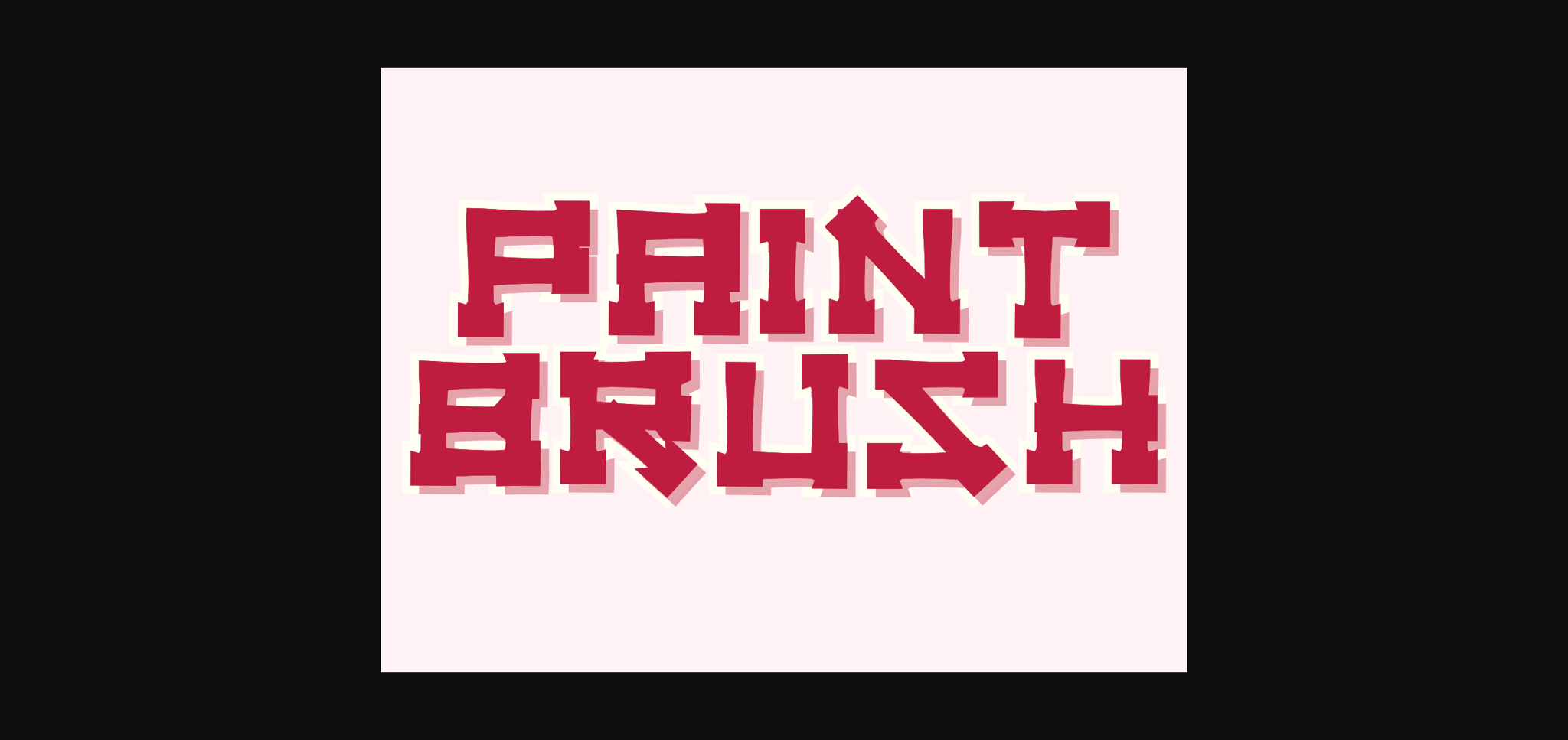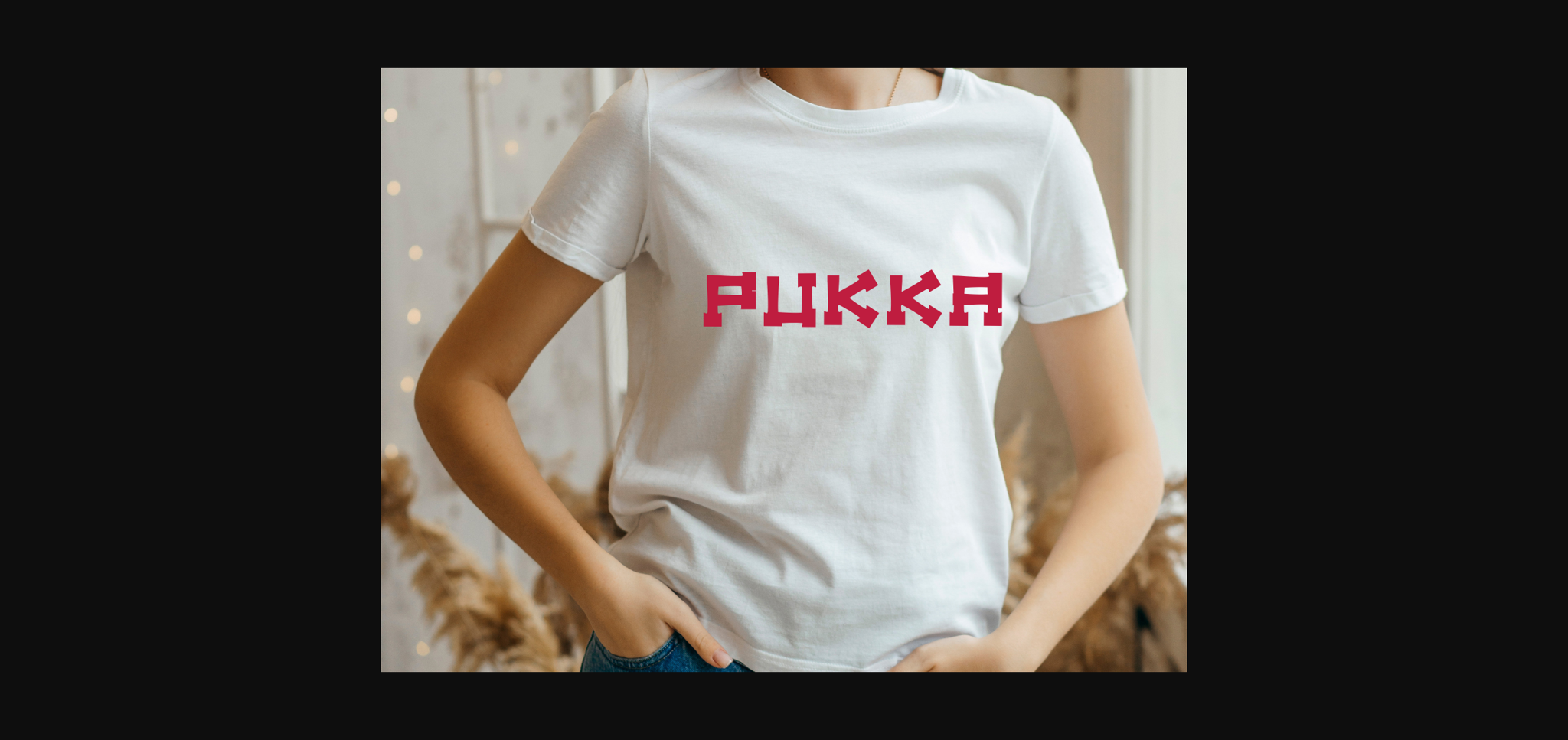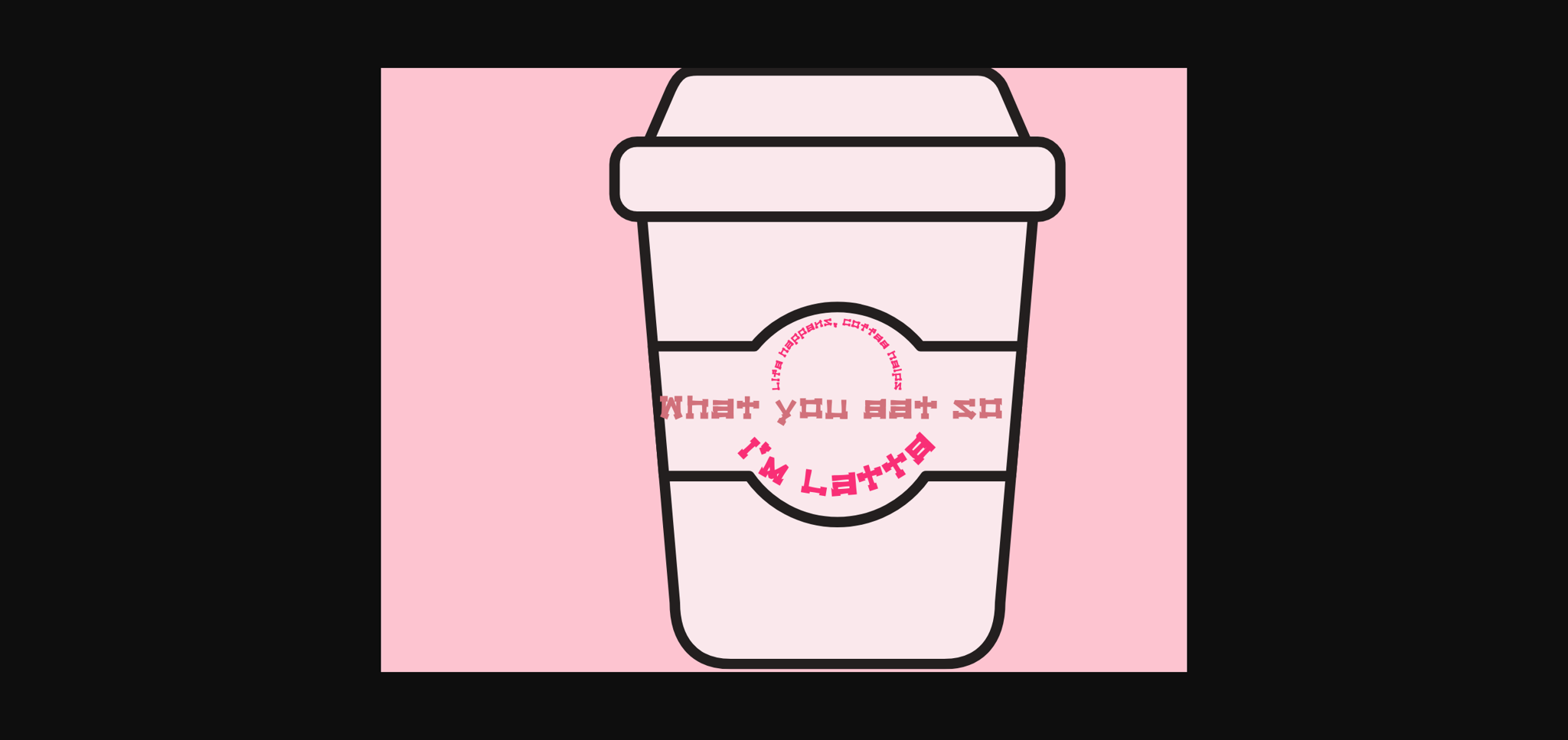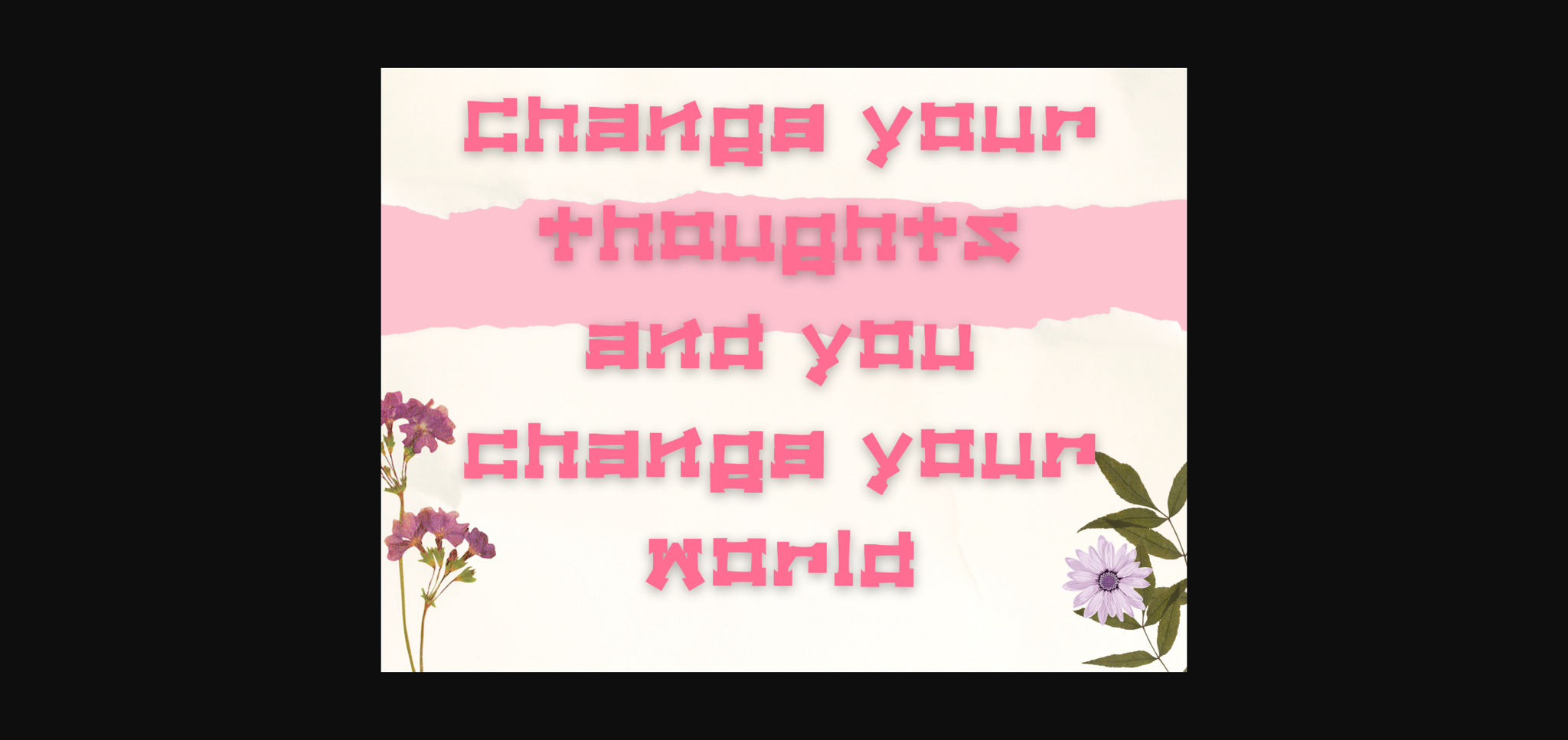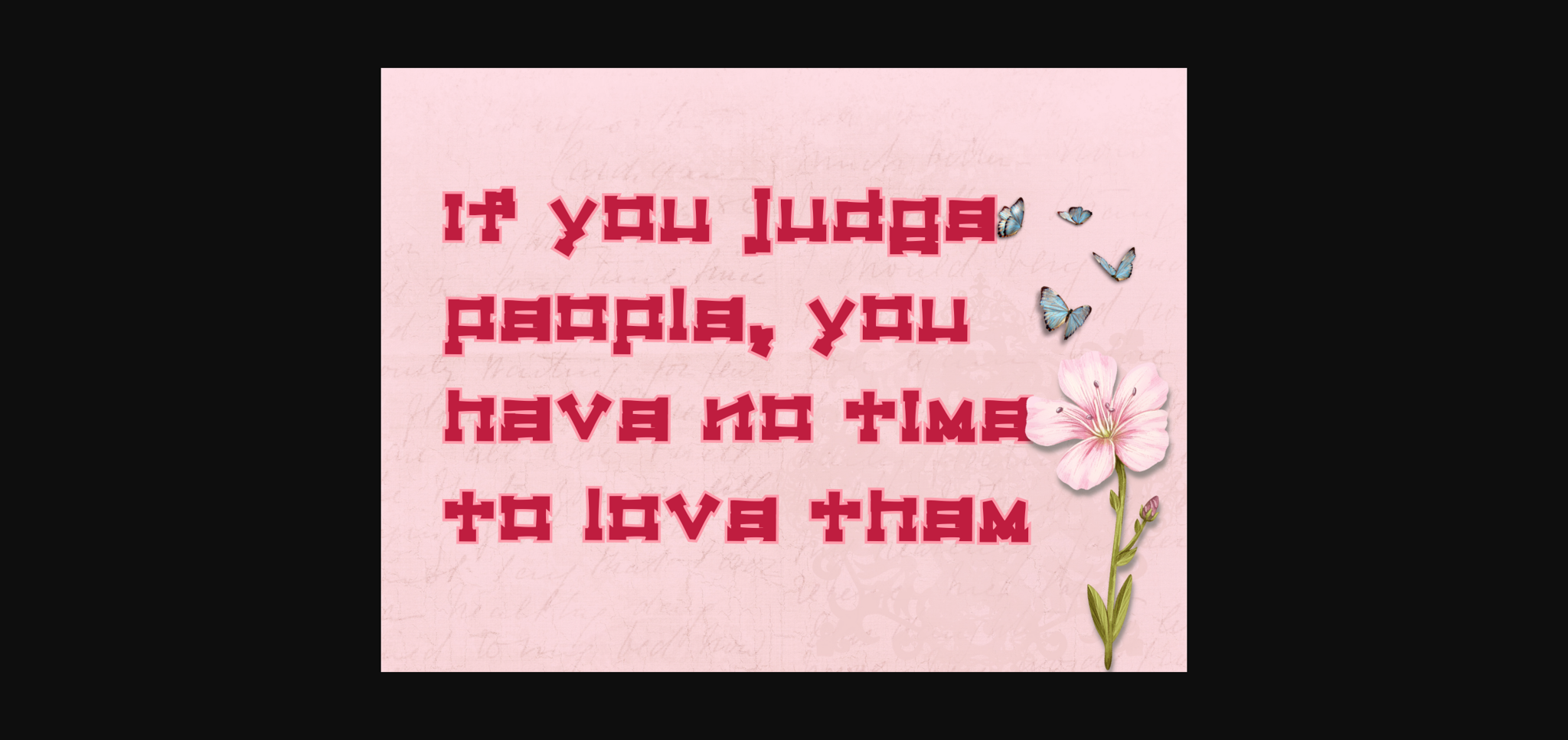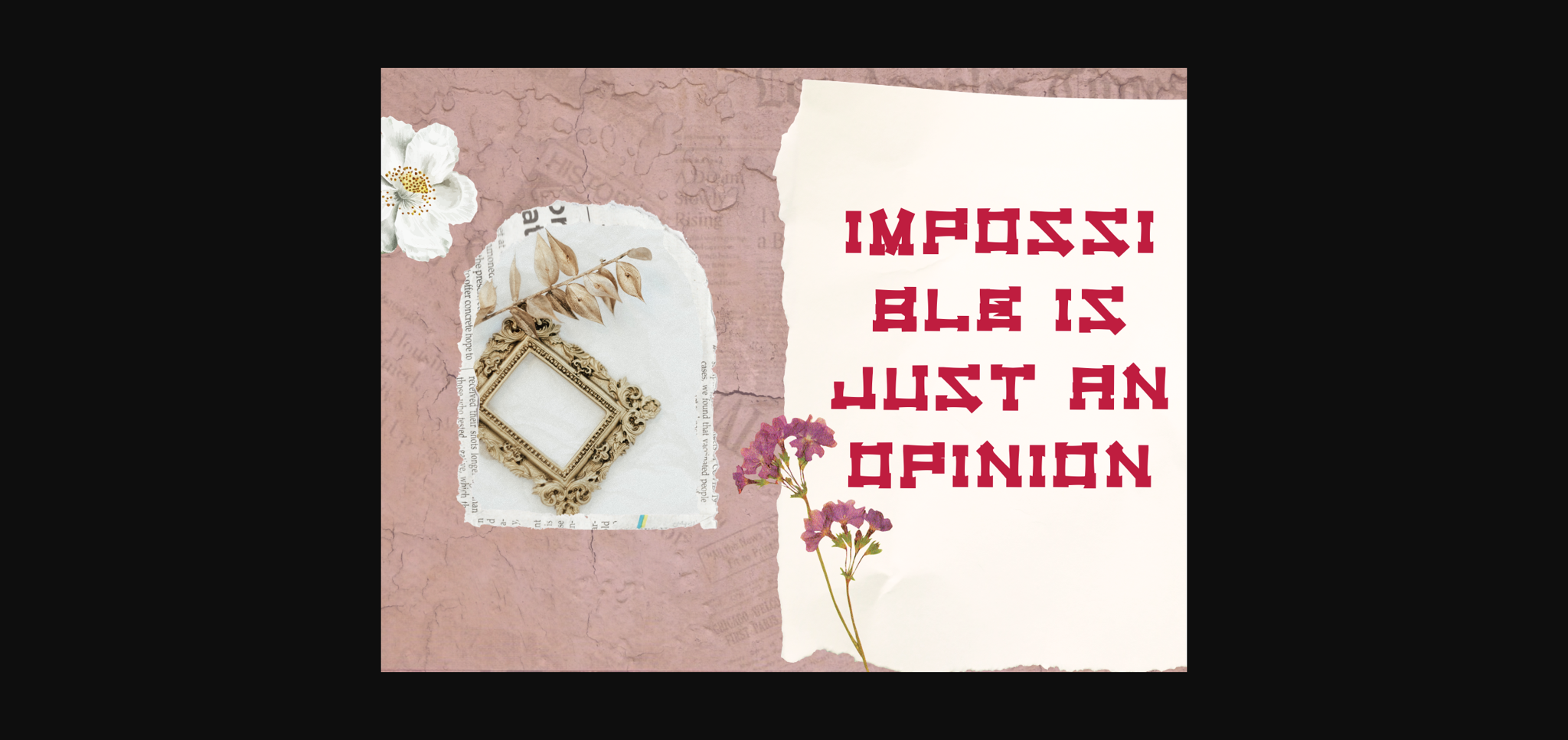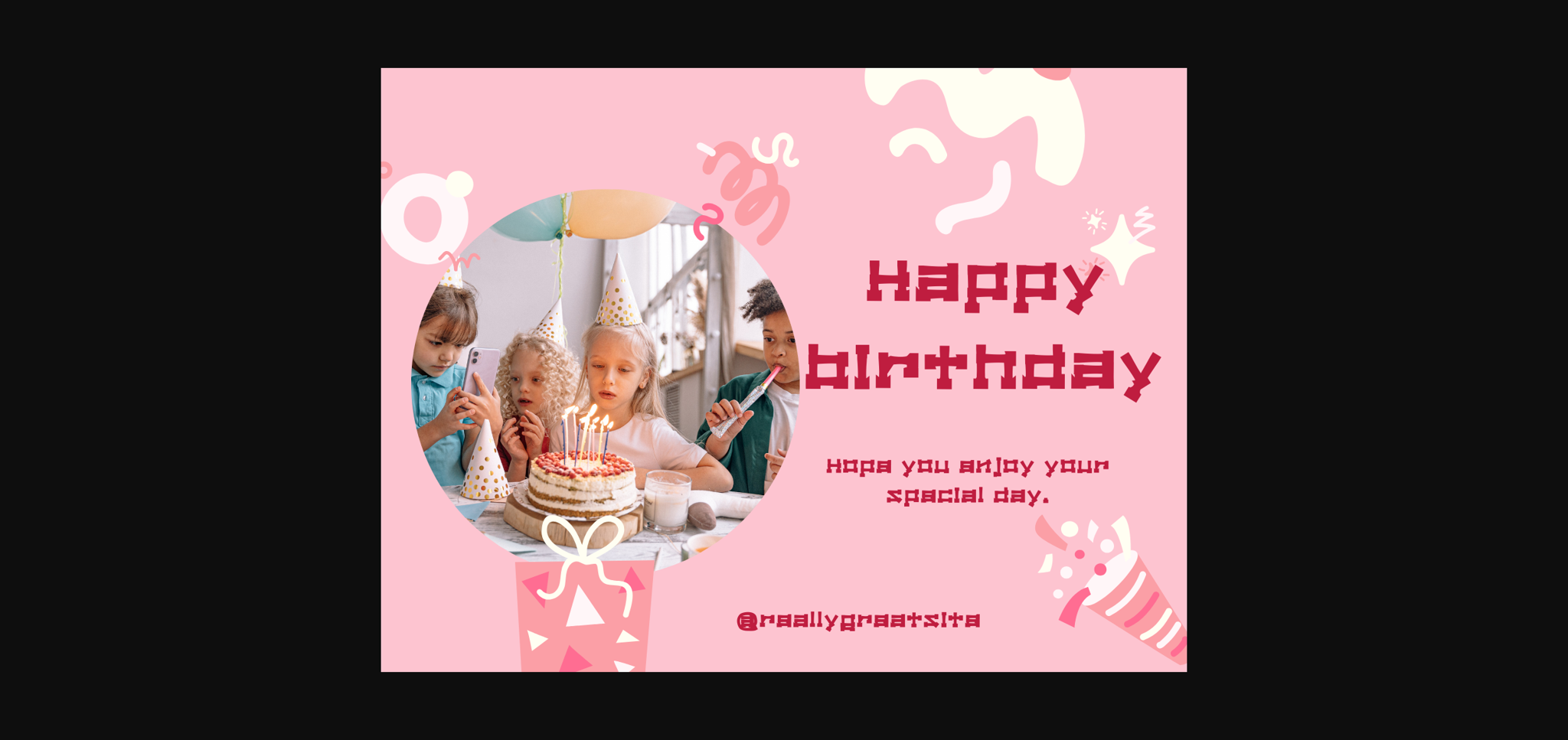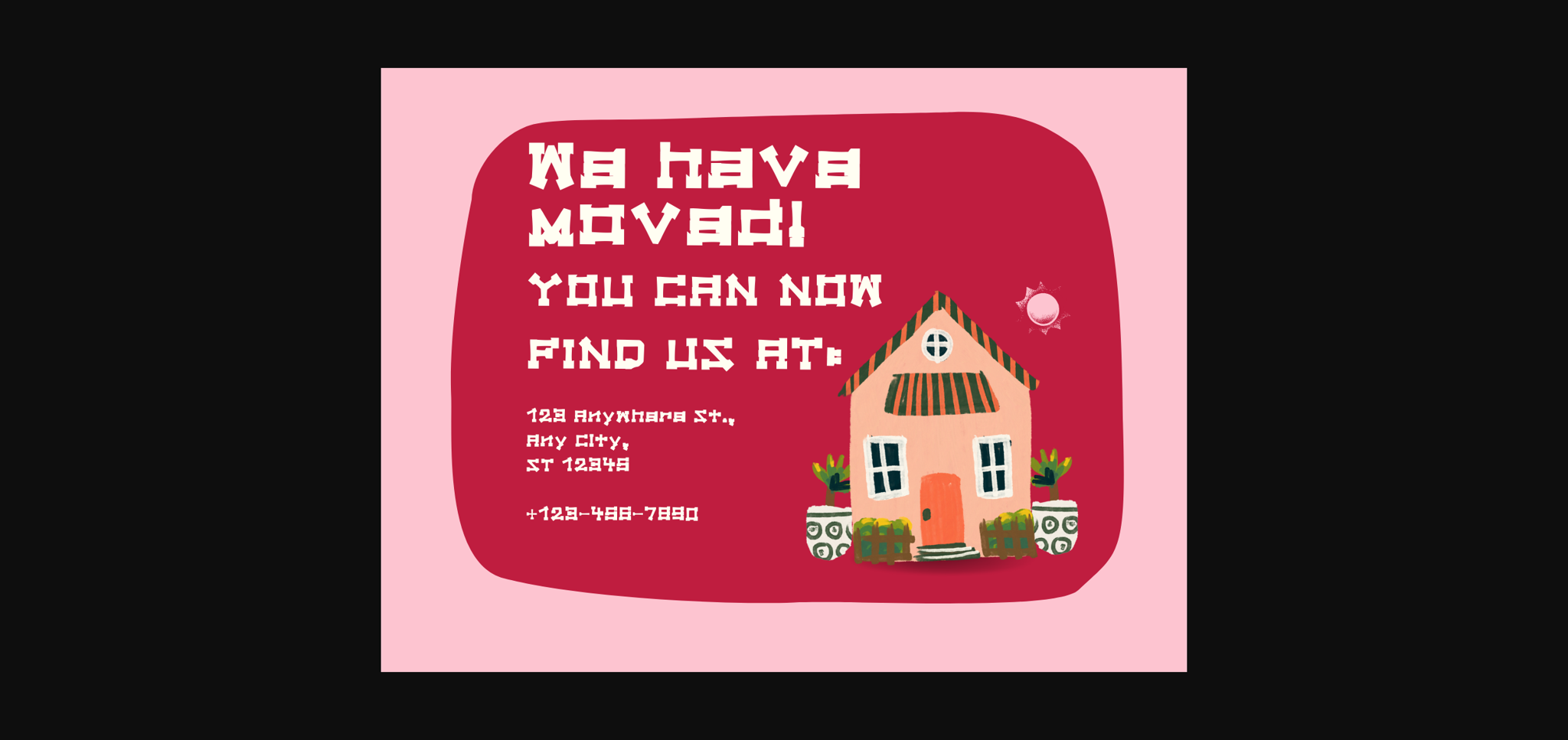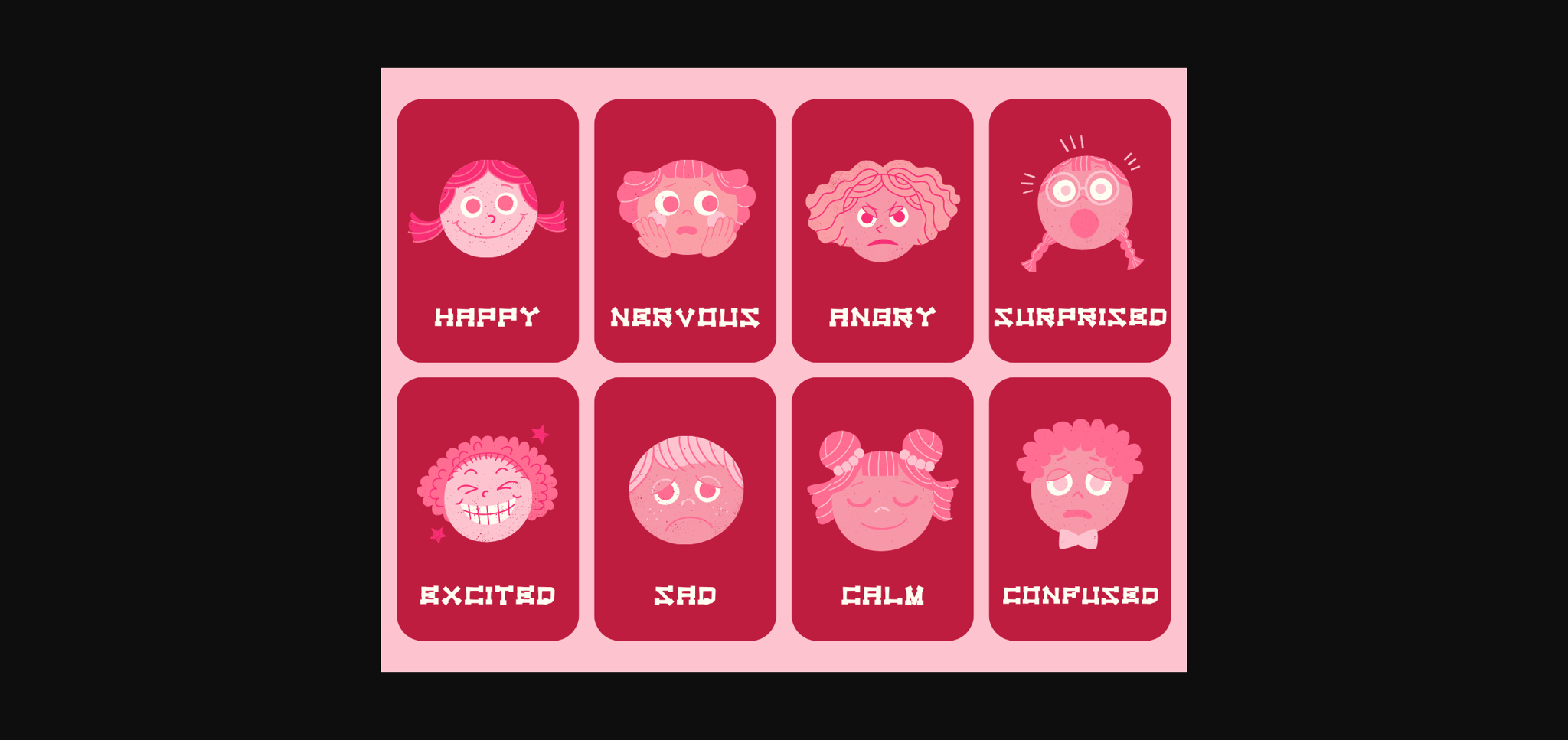
Paintbrush Font
About Paintbrush Font
Paintbrush is a fun and friendly handwritten font. Use it to turn any design idea into a true standout. Get inspired by its unique charm and create lovely designs.